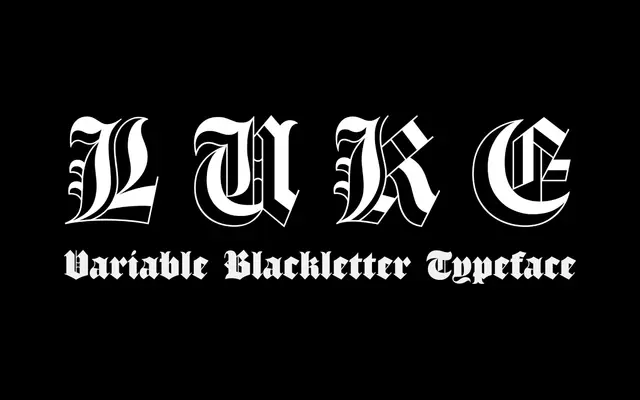
A contemporary blackletter family drawn from 19th-century Caslon Foundry sources, spanning twelve styles from thin to thick contours with a variable font included.
Named after the Caslon family tomb at St Luke Old Street in London, this family draws its core forms from a distinctive 19th-century Caslon blackletter. Twelve styles cover a range from light outlines to fully filled weights, making the family workable for both text-setting and display use. Each font includes 641 glyphs with OpenType support for ligatures, contextual alternates and fractions, covering 37 languages across South, East and Western Europe.
Explicitly described as a contemporary adaptation of historic English Blackletter, inspired by 19th-century Caslon Foundry blackletter forms.